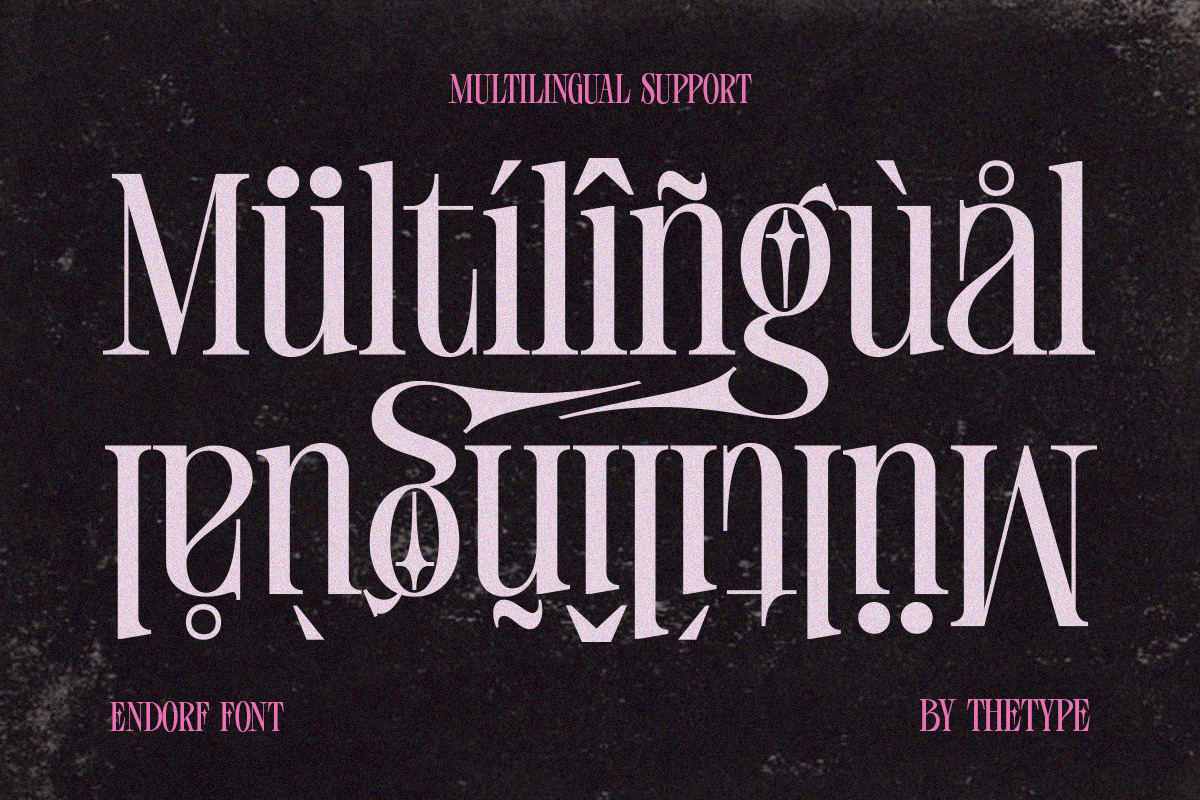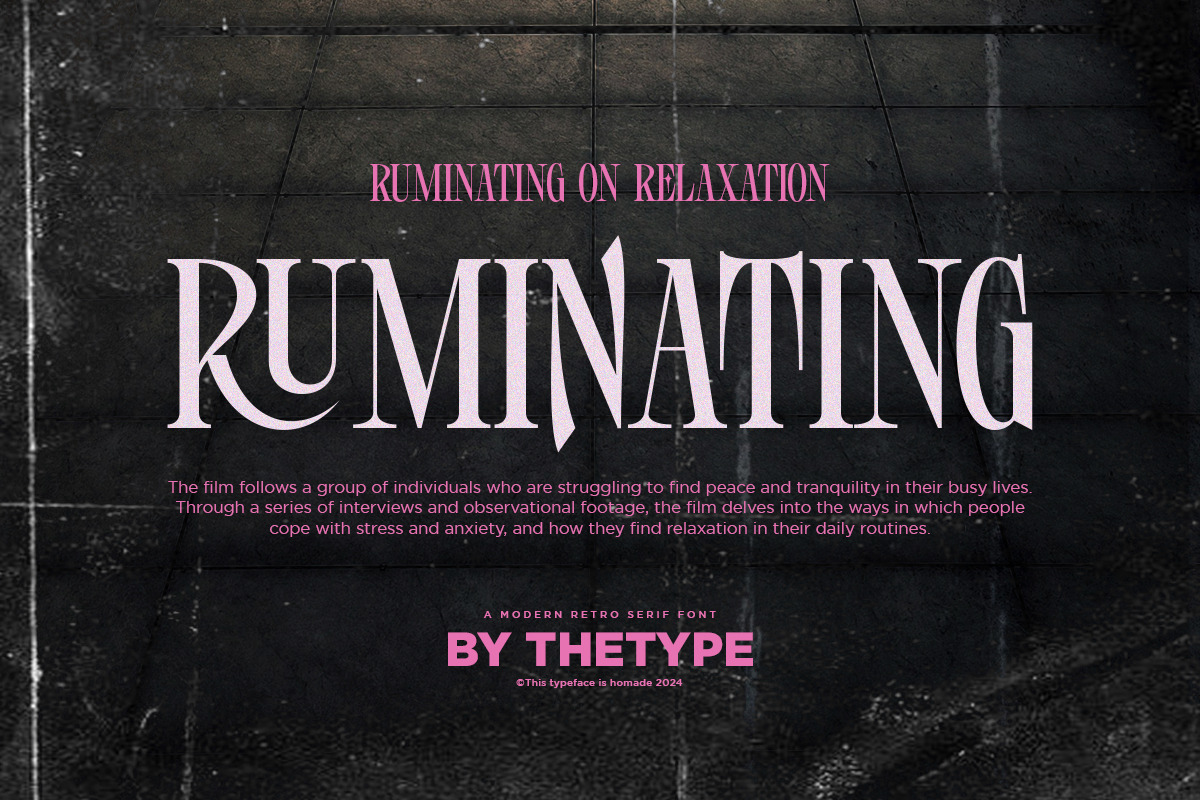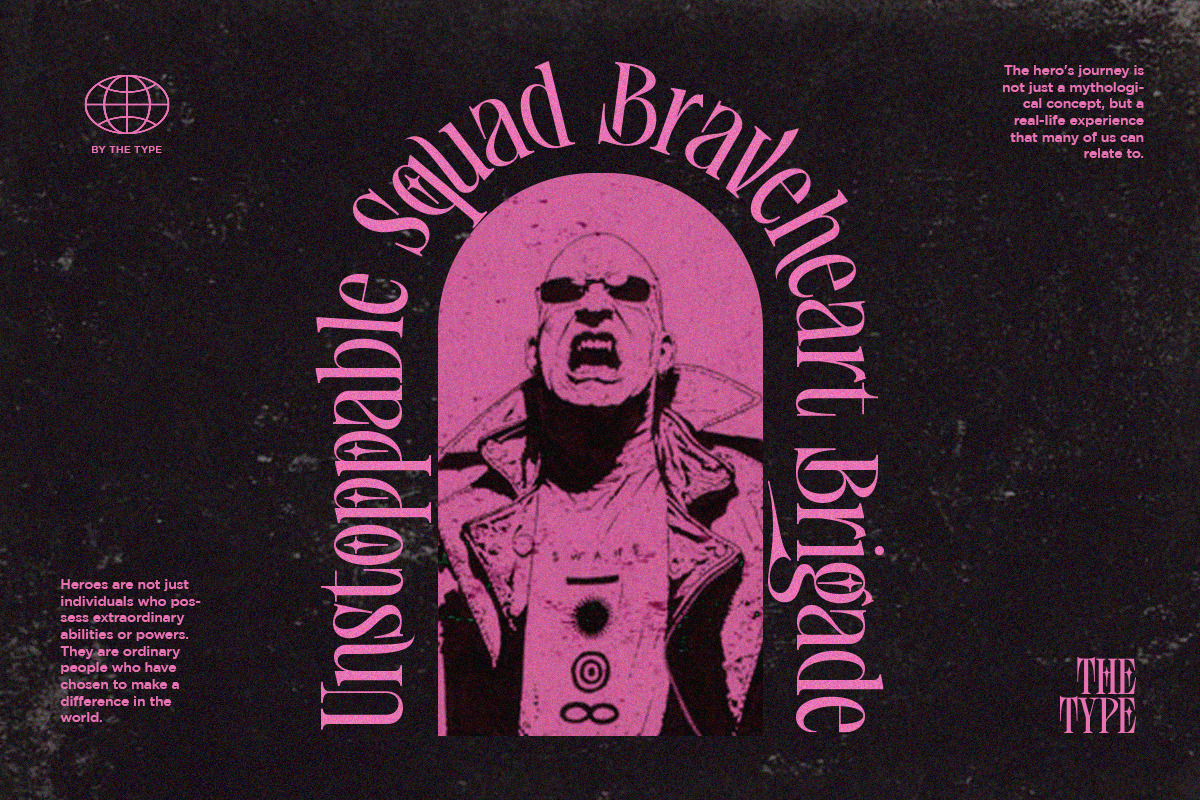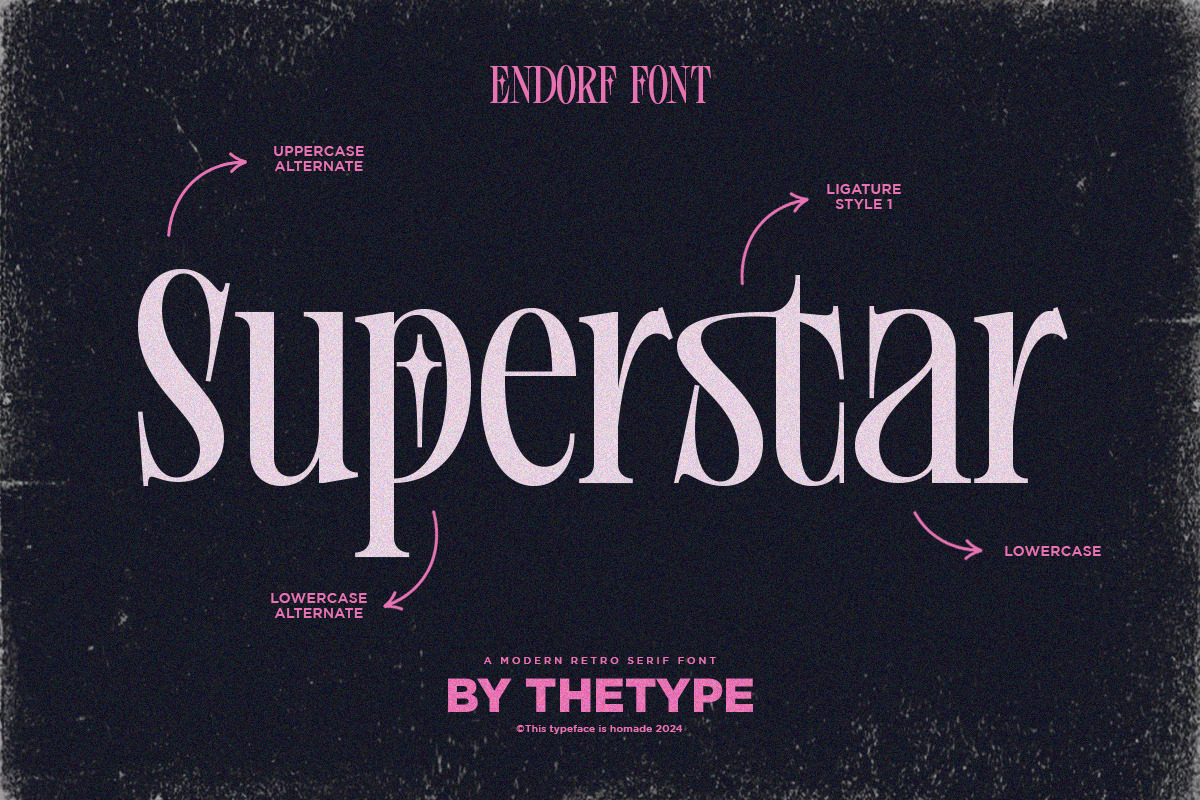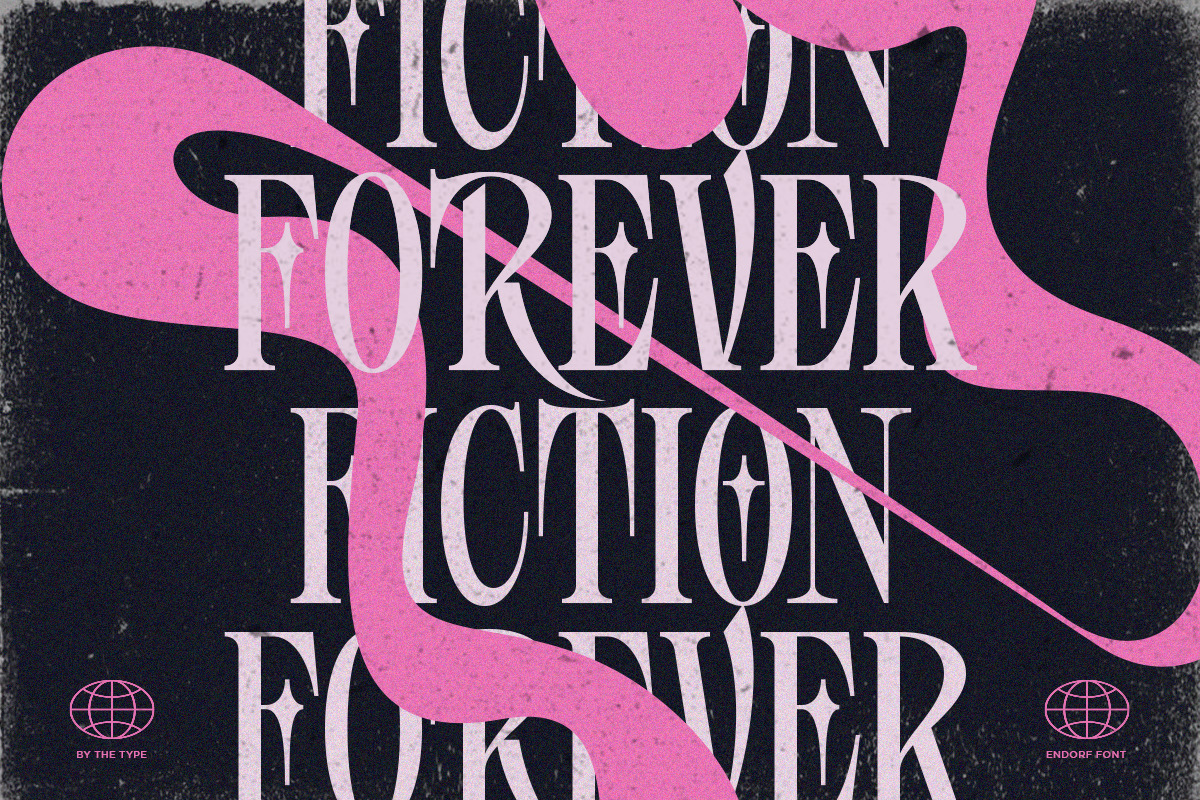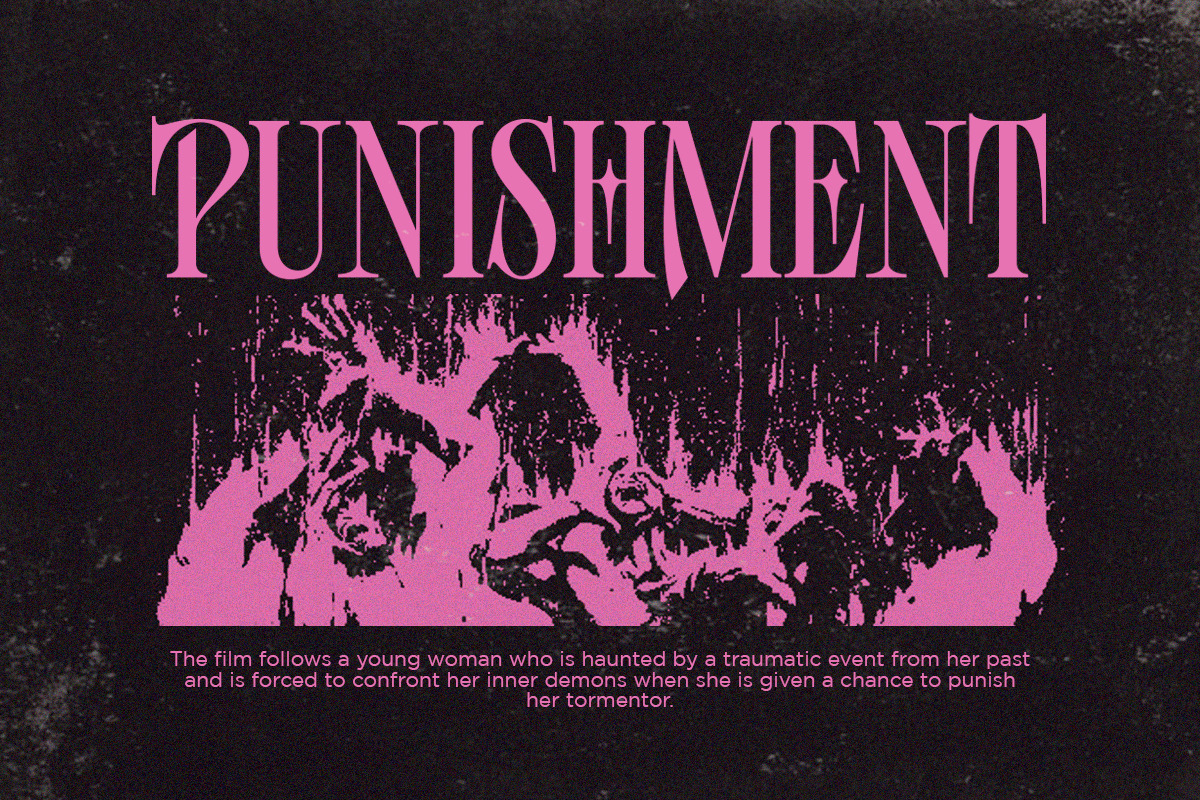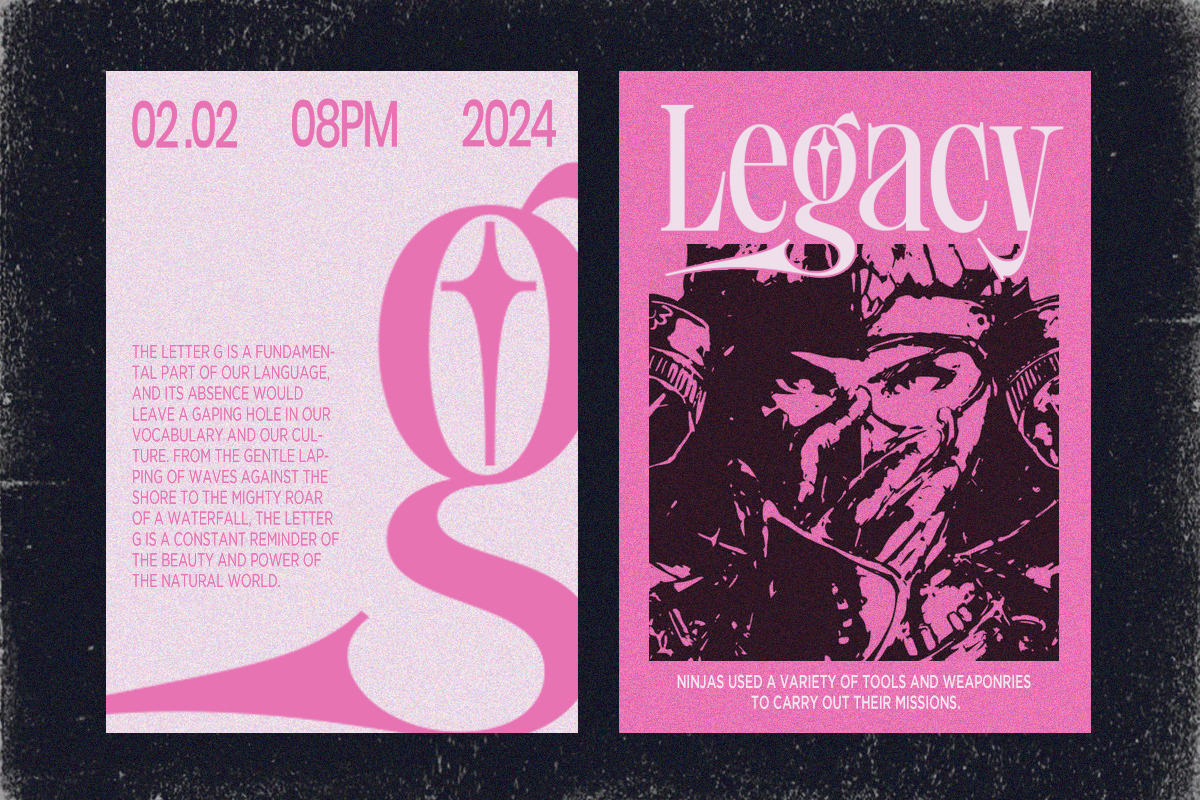
ENDORF | FONT
ENDORF - a Modern Timeless Serif Font. This font can look more Display (expressive) serif, which is perfect for texts. So same he can be more expressive, playing and more modern with alternative substitutes and ligatures, try to play with them and you will get the uniqueness in your project.
Following multilingual support: ÀÁÂÃÄÅĄÇĆÈÉÊËĘÌÍÎÏÐÑŃŁÒÓÔÕÖØÙÚÛÜŚŠŸÝŹŻŽßàáâãäåçèéêëìíîïðñòóôõöøùúûüýÿąćęłńśšźżž
- Alternates
- Multilingual